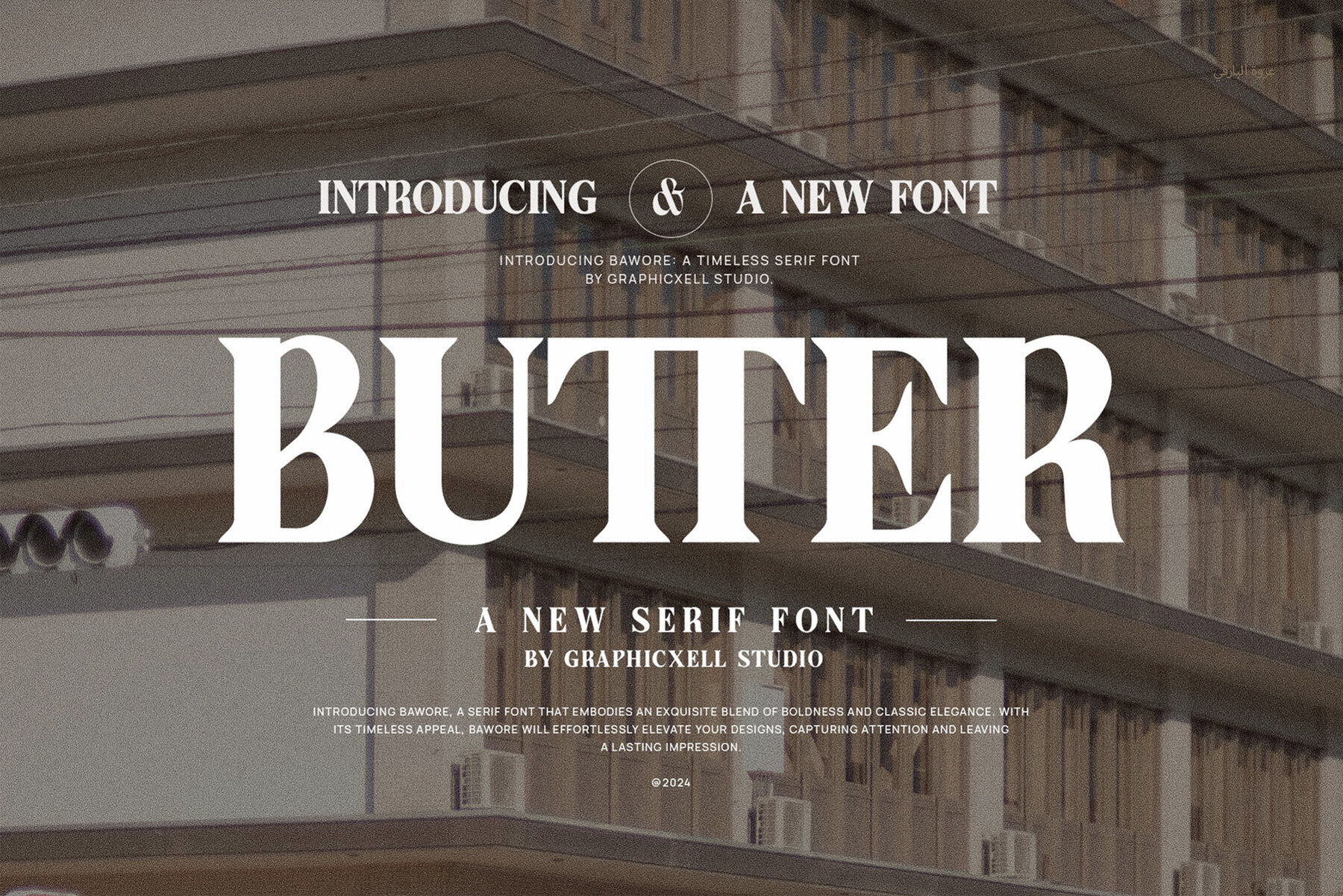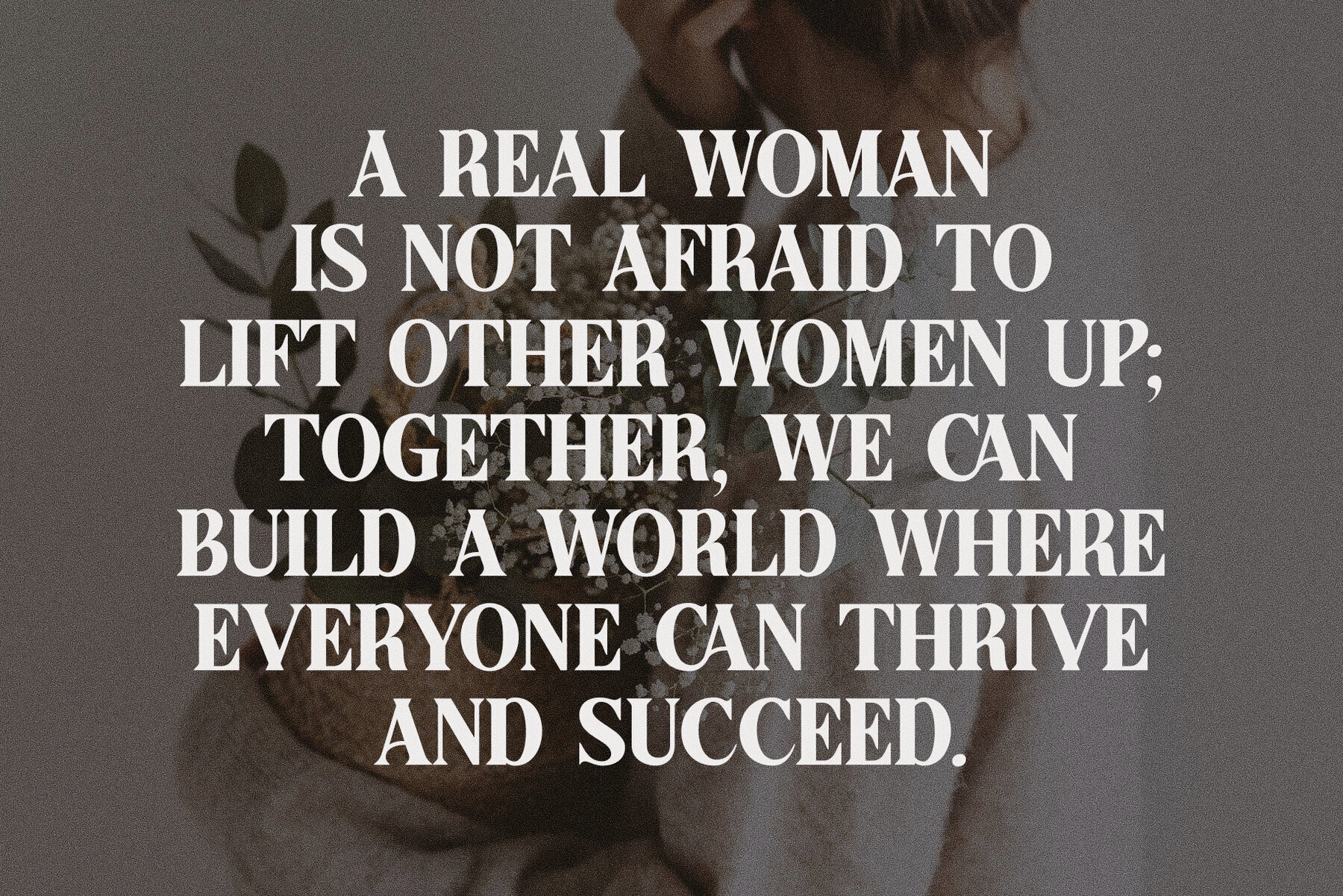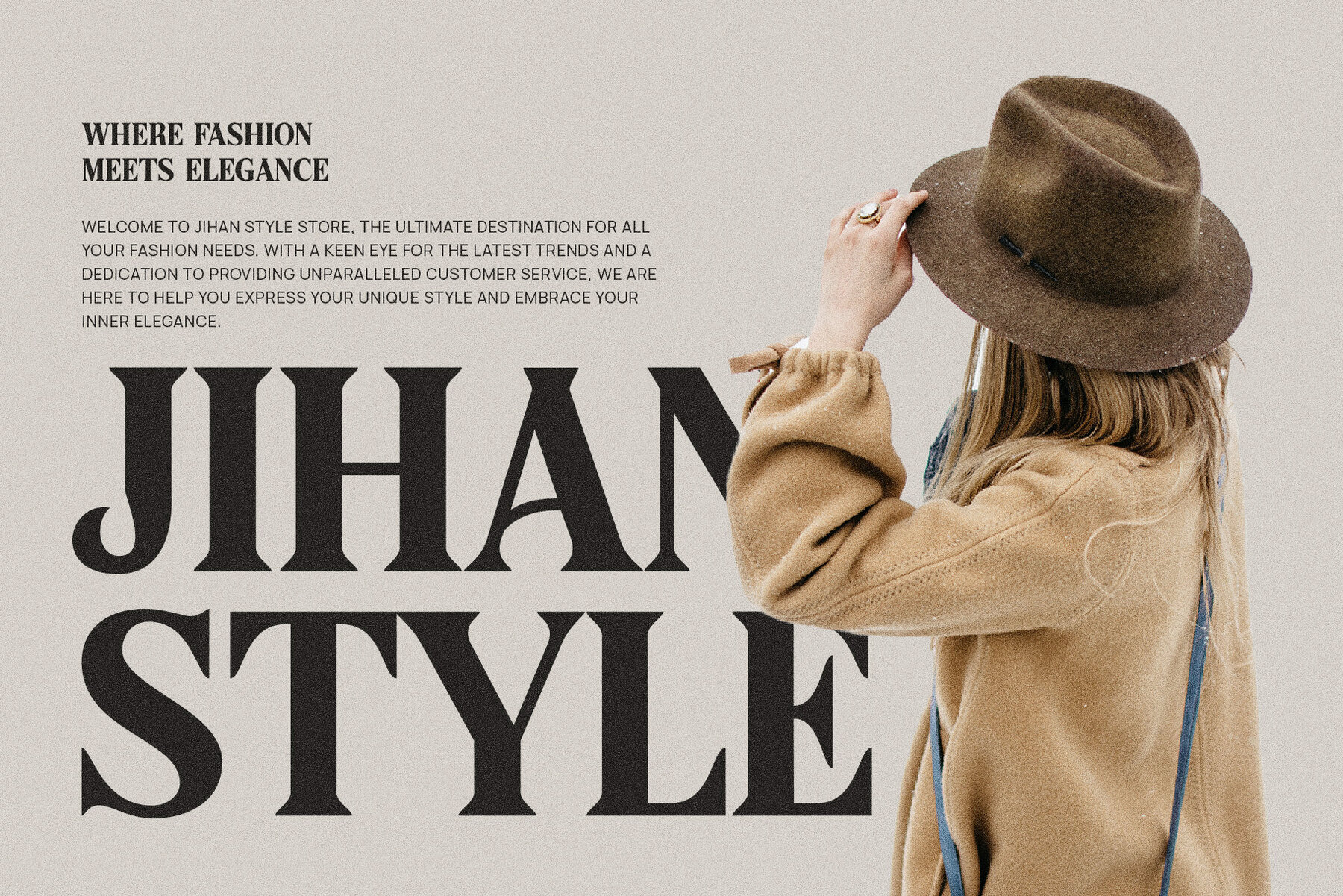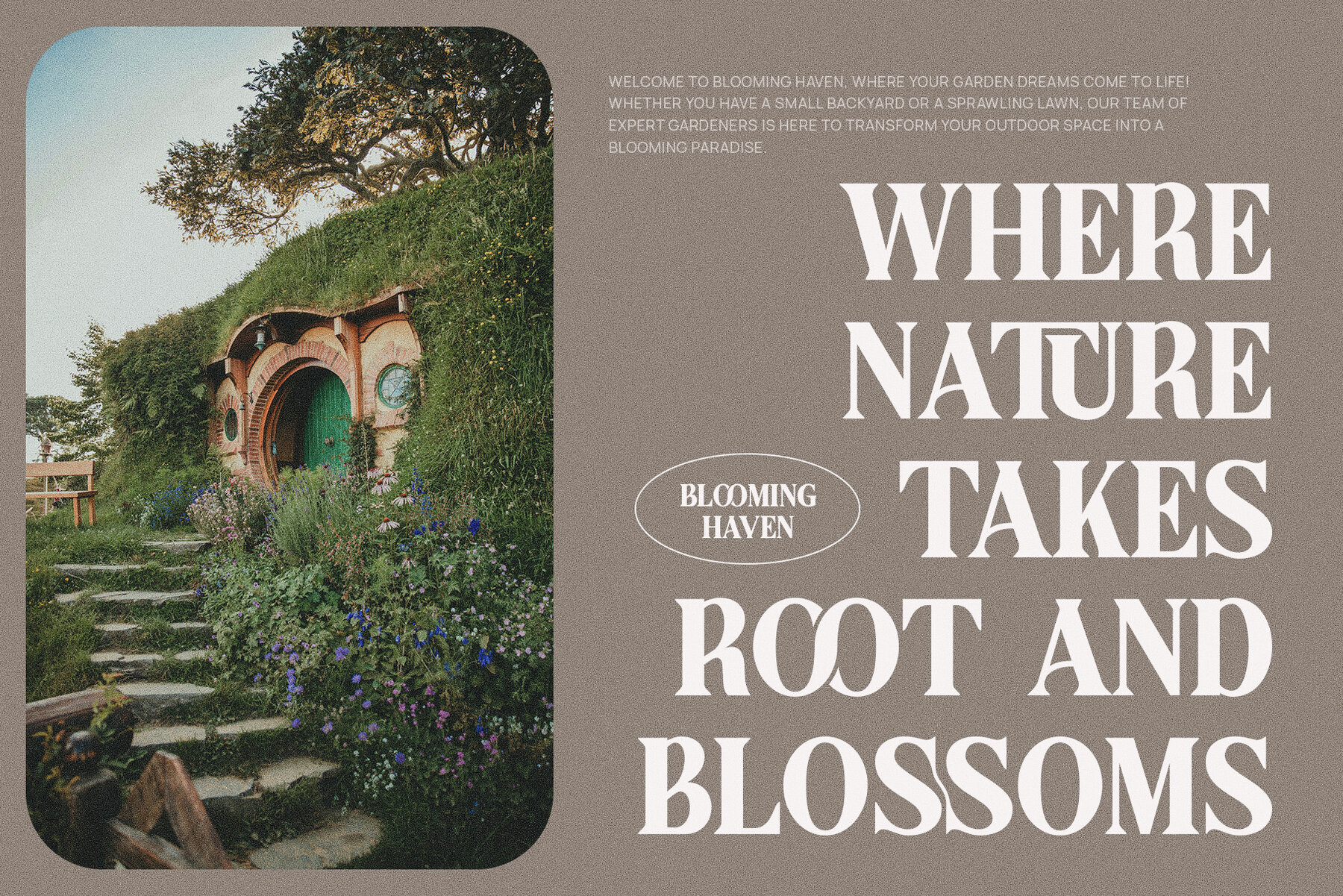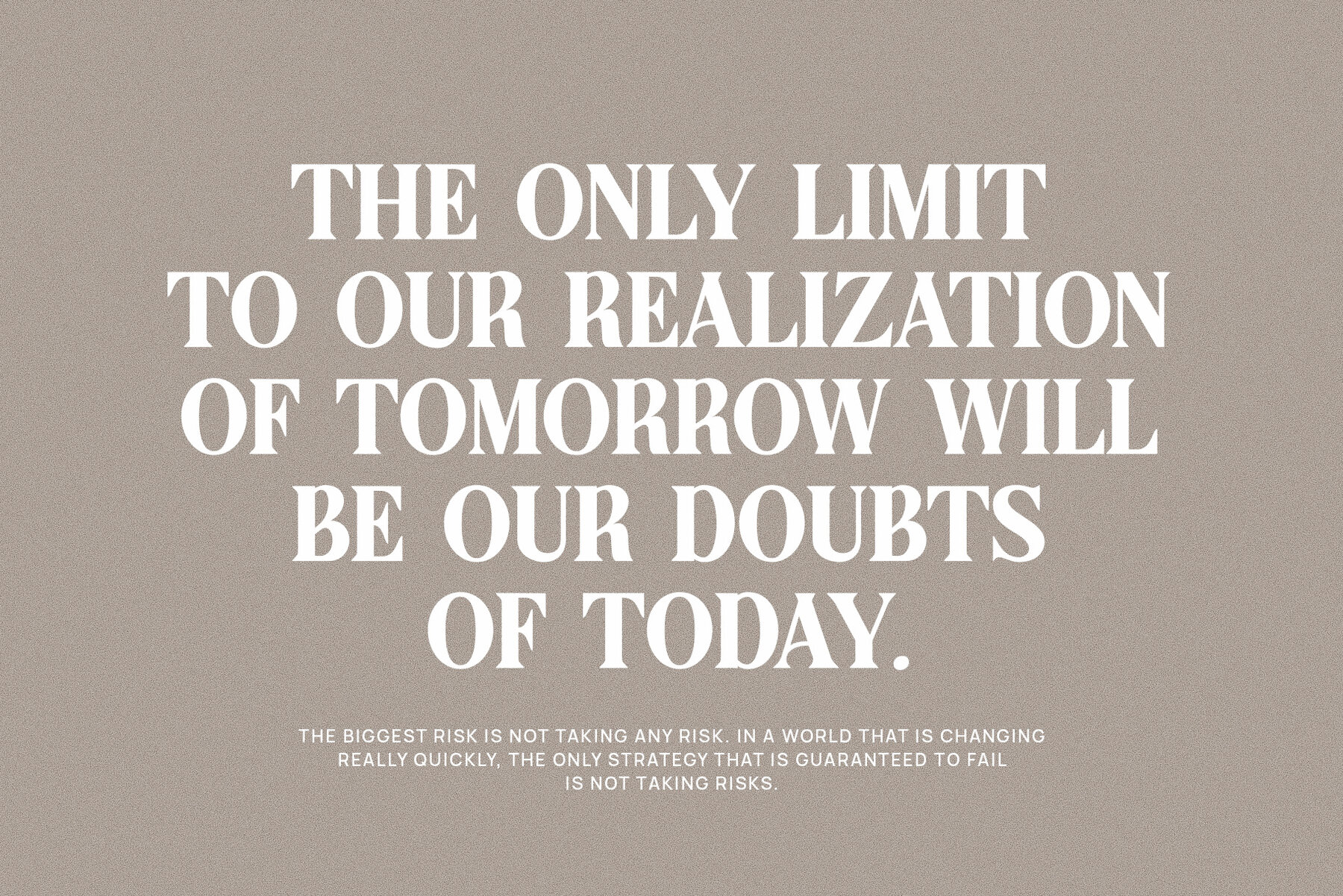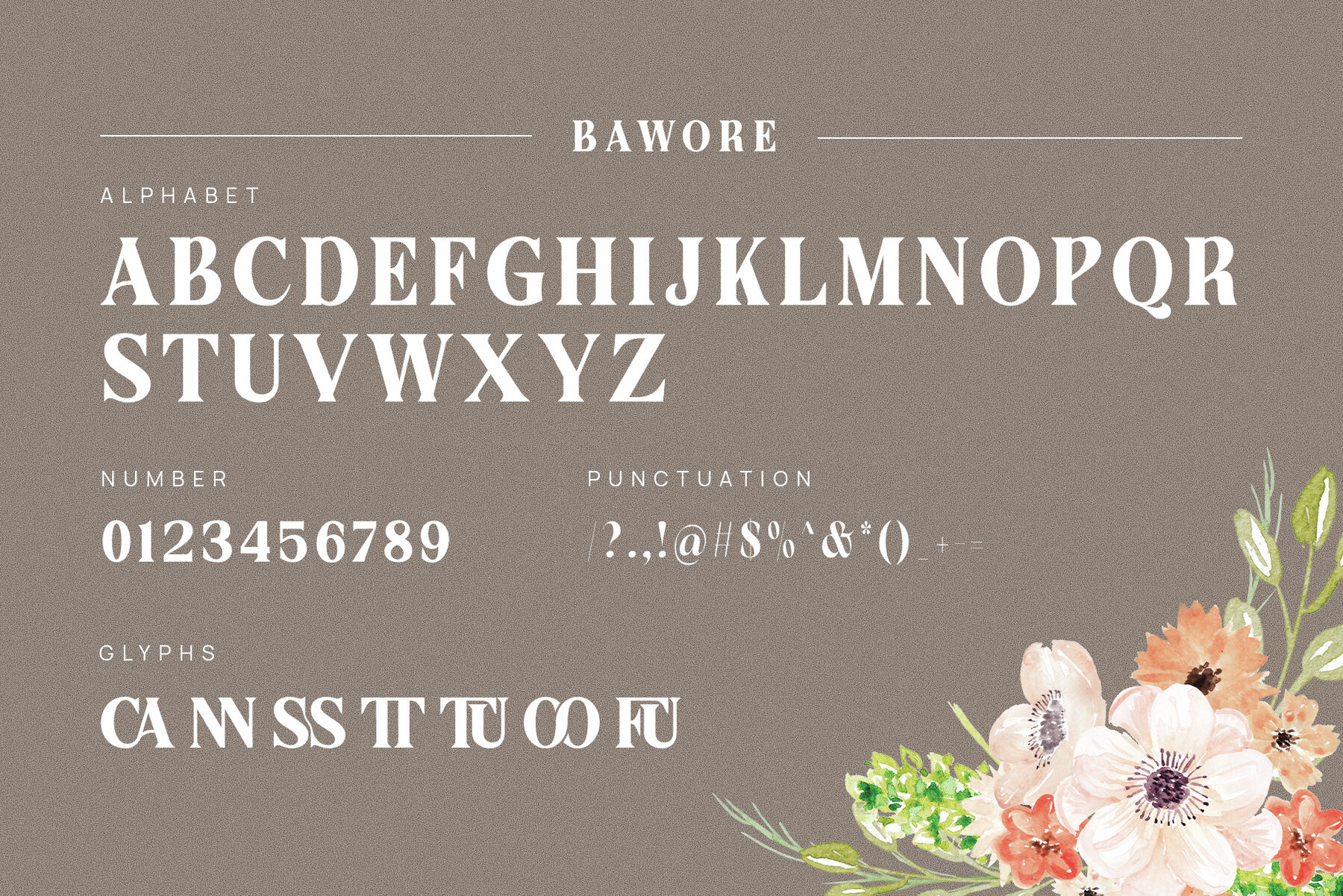
Butter Font
Butter Regular
Butter, the combined creativity of classic and modern style geometry, is the brainchild of esteemed designer Graphicxell. With its meticulous balance of elegance and modernity, this beautiful serif font is skillfully adapted to meet diverse design needs. An embodiment of sophistication, it stands as an invaluable resource for graphic designers aiming to elevate their portfolios and firms looking to extend their marketing reach. Unbounded by conventional design norms, Butter is ideal for all brand crafting ventures, right from creating resonating logos to curating engaging wedding designs. It guarantees to establish a compelling visual appeal, enhancing your designs, and allowing them to communicate clearly, effectively, and with style. Radiating an air of professionalism, Butter helps turn any design into a masterpiece, adding an extra layer of refinement and charm to your work and your clients' projects. Key Features:Butter: A Blend of Classic Elegance and Modern Aesthetics for Graphic Designers and Marketing Firms